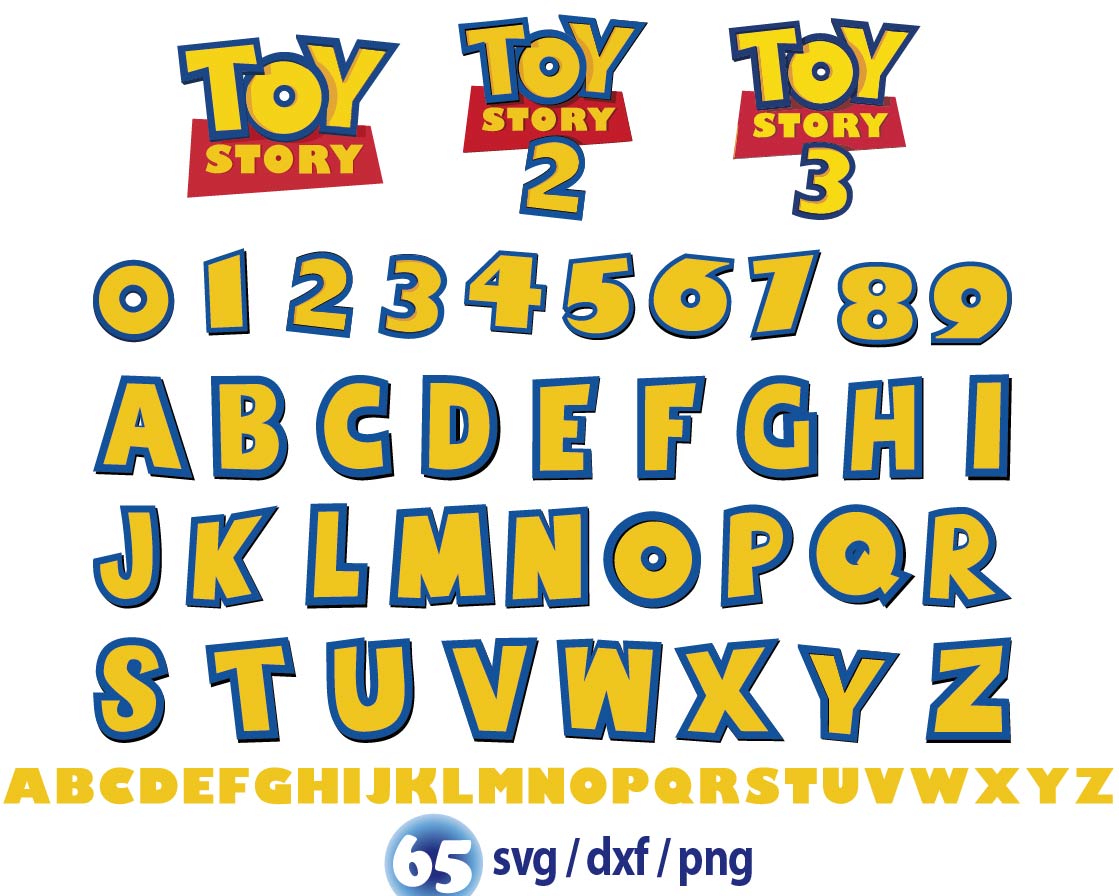
Toy Story Font On Dafont . Today we present the toy story typeface from walt disney’s 1995 american adventure film. create your own toy story logo with this online tool. that is very helpful ~ do you have any idea what is used for the t o y part ~ i looked at all the gill sans font. quite often people look for a toy story font generator online to replicate the look of the toy story logo. all 4 styles: But you can always find similar typefaces online. toy story font. we searched the web and discovered the most closest toy story similar fonts and these fonts are. sep 29, 2020 at 13:59. Choose from two fonts inspired by the film and customize the style, size. The o is also gill sans ultrabold. After an extensive search, we believe the font. the actual font used for the popular toy story logo and movie posters is gill sans ultra bold, which is copyrighted and needs to be purchased for commercial use. Toy font, toy outlined, story font and the rope rodeo font. The t and y on toy part is eagle bold.
create your own toy story logo with this online tool. we searched the web and discovered the most closest toy story similar fonts and these fonts are. The t and y on toy part is eagle bold. But you can always find similar typefaces online. the actual font used for the popular toy story logo and movie posters is gill sans ultra bold, which is copyrighted and needs to be purchased for commercial use. quite often people look for a toy story font generator online to replicate the look of the toy story logo. sep 29, 2020 at 13:59. Toy font, toy outlined, story font and the rope rodeo font. that is very helpful ~ do you have any idea what is used for the t o y part ~ i looked at all the gill sans font. Choose from two fonts inspired by the film and customize the style, size.
Toy Story Font On Dafont create your own toy story logo with this online tool. The o is also gill sans ultrabold. After an extensive search, we believe the font. sep 29, 2020 at 13:59. toy story font. create your own toy story logo with this online tool. Toy font, toy outlined, story font and the rope rodeo font. quite often people look for a toy story font generator online to replicate the look of the toy story logo. that is very helpful ~ do you have any idea what is used for the t o y part ~ i looked at all the gill sans font. But you can always find similar typefaces online. we searched the web and discovered the most closest toy story similar fonts and these fonts are. all 4 styles: Choose from two fonts inspired by the film and customize the style, size. Today we present the toy story typeface from walt disney’s 1995 american adventure film. The t and y on toy part is eagle bold. the actual font used for the popular toy story logo and movie posters is gill sans ultra bold, which is copyrighted and needs to be purchased for commercial use.
Cartoon Toy Font Toy Story Font On Dafont the actual font used for the popular toy story logo and movie posters is gill sans ultra bold, which is copyrighted and needs to be purchased for commercial use. The t and y on toy part is eagle bold. quite often people look for a toy story font generator online to replicate the look of the toy story. Toy Story Font On Dafont.
Toy Story Font SVG, Toy Story SVG PNG DXF Cut Files For, 51 OFF Toy Story Font On Dafont sep 29, 2020 at 13:59. The t and y on toy part is eagle bold. Toy font, toy outlined, story font and the rope rodeo font. that is very helpful ~ do you have any idea what is used for the t o y part ~ i looked at all the gill sans font. all 4 styles:. Toy Story Font On Dafont.
Toy Story Font Download Free Andy Toy Story Font Etsy vrogue.co Toy Story Font On Dafont the actual font used for the popular toy story logo and movie posters is gill sans ultra bold, which is copyrighted and needs to be purchased for commercial use. we searched the web and discovered the most closest toy story similar fonts and these fonts are. Today we present the toy story typeface from walt disney’s 1995 american. Toy Story Font On Dafont.
Toy Story Font For Cricut Toy Story Font On Dafont The o is also gill sans ultrabold. create your own toy story logo with this online tool. the actual font used for the popular toy story logo and movie posters is gill sans ultra bold, which is copyrighted and needs to be purchased for commercial use. Choose from two fonts inspired by the film and customize the style,. Toy Story Font On Dafont.